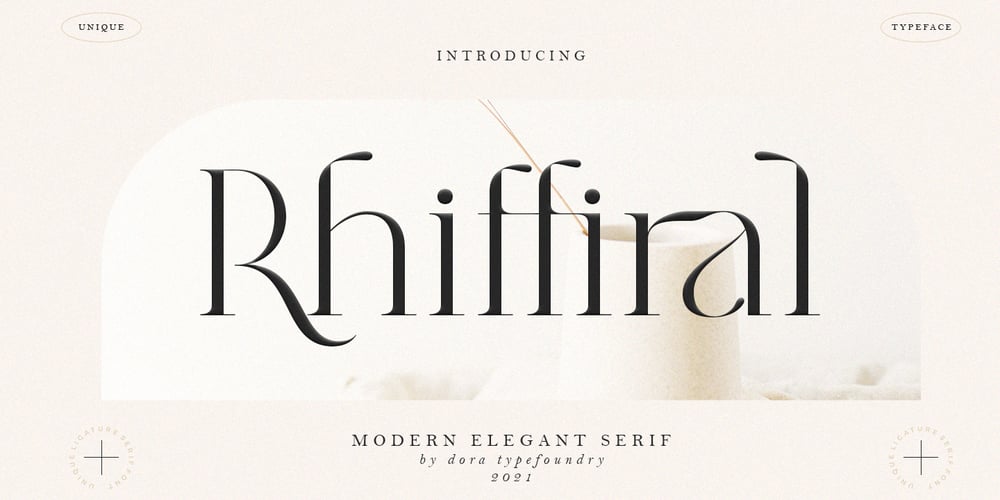
Rhiffiral Font Family was designed by Zahratul Laila and published by Dora Typefoundry. Rhiffiral contains 1 styles and family package options. Introducing – Modern elegant serif font branding.Rhiffiral is a modern serif font to apply to many graphic design projects or a classy editorial, a unique high contrast and light binding style for your upcoming projects. for feminine logo signs, fashion & editorial design heads, branding projects, Apparel Branding, packaging, titles magazines, advertisements, T-shirts, postcards and other special occasions.Here’s what’s included:· Alternates & Ligatures· Numbers & punctuation· Characters with accents· Supports Multiple Languages· PUA EncodedThis type of family has become the work of true love, making it as easy and fun as possible.I really hope you enjoy it!Thank You.